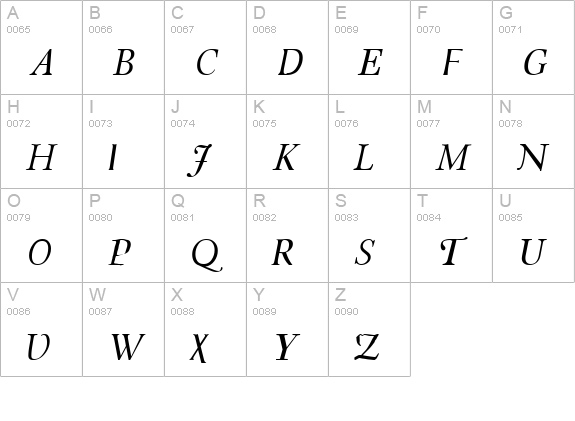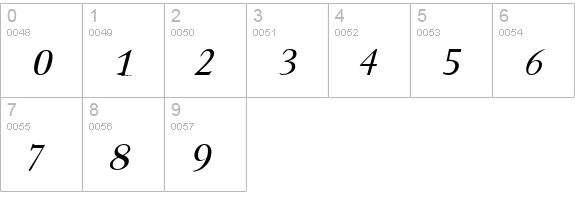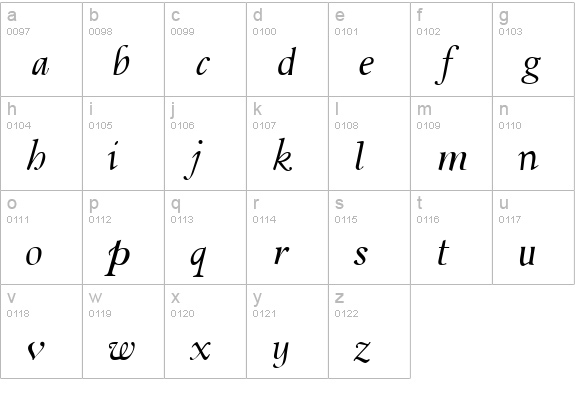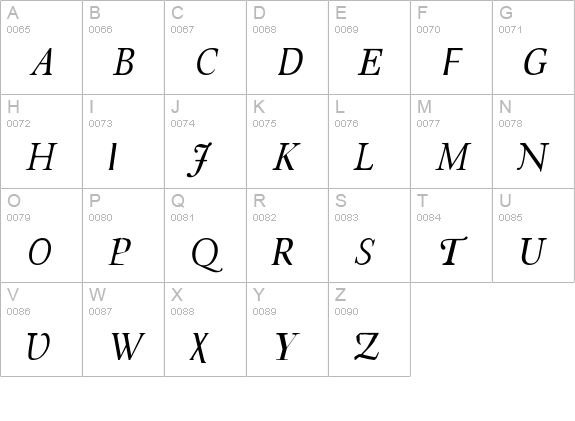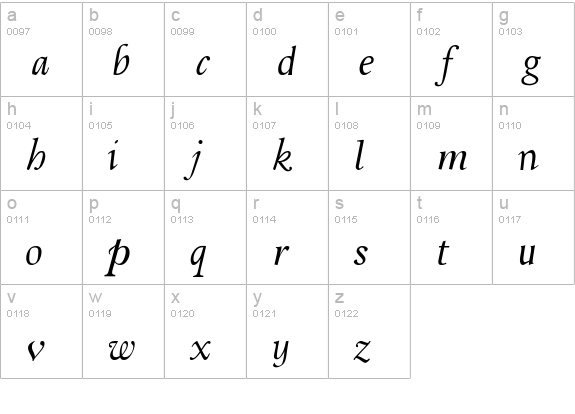
Quodlibet Italic Font Details
Quodlibet Italic is a distinctive, italic variant in the Quodlibet typeface family \xE2\x80\x94 well suited to design and typography projects.
Quodlibet Italic is a stunning font that captivates with its elegant and graceful appearance. This font exudes a sense of sophistication and refinement, making it perfect for a wide range of projects that require a touch of class. With its delicate strokes and beautifully curved letterforms, Quodlibet Italic adds a touch of luxury and style to any design. What makes Quodlibet Italic even more remarkable is that it is freely available to download at FontsMarket.com. This means that you can enhance your creative endeavors without having to worry about any financial constraints. Whether you are a graphic designer working on a client project or an individual looking to add a touch of beauty to your personal creations, Quodlibet Italic is the perfect choice. The versatility of Quodlibet Italic knows no bounds. It is equally at home in a sophisticated branding project as it is in a wedding invitation or a book cover. Its timeless appeal and exquisite design make it a font that can be used across a wide range of applications, ensuring that your designs will always stand out from the crowd. Quodlibet Italic's flowing and graceful letterforms create a harmonious and visually pleasing composition. Each letter is meticulously crafted to perfection, resulting in a typeface that is not only aesthetically pleasing but also highly legible. Whether it is used in large headlines or small body text, Quodlibet Italic delivers a flawless reading experience. With its generous character set, Quodlibet Italic covers all your typographic needs. It includes a variety of ligatures, alternative characters, and punctuation marks, allowing you to customize your designs and add your personal touch. This font is a true testament to the power of typography, elevating your designs to new levels of elegance and sophistication. Download Quodlibet Italic for free at FontsMarket.com and unlock a world of possibilities. Whether you are a professional designer or a typography enthusiast, this font is a must-have in your collection. Experience the beauty and versatility of Quodlibet Italic and let your creativity soar.